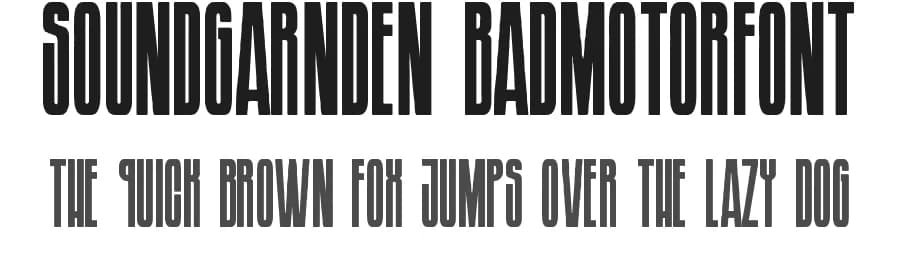
About Soundgarnden Badmotorfont
A-Z Original font used by grunge rock band Soundgarden on their album Badmotorfinger.
Soundgarnden Badmotorfont
by Jaxkes